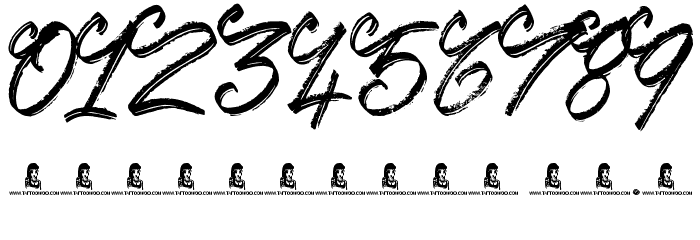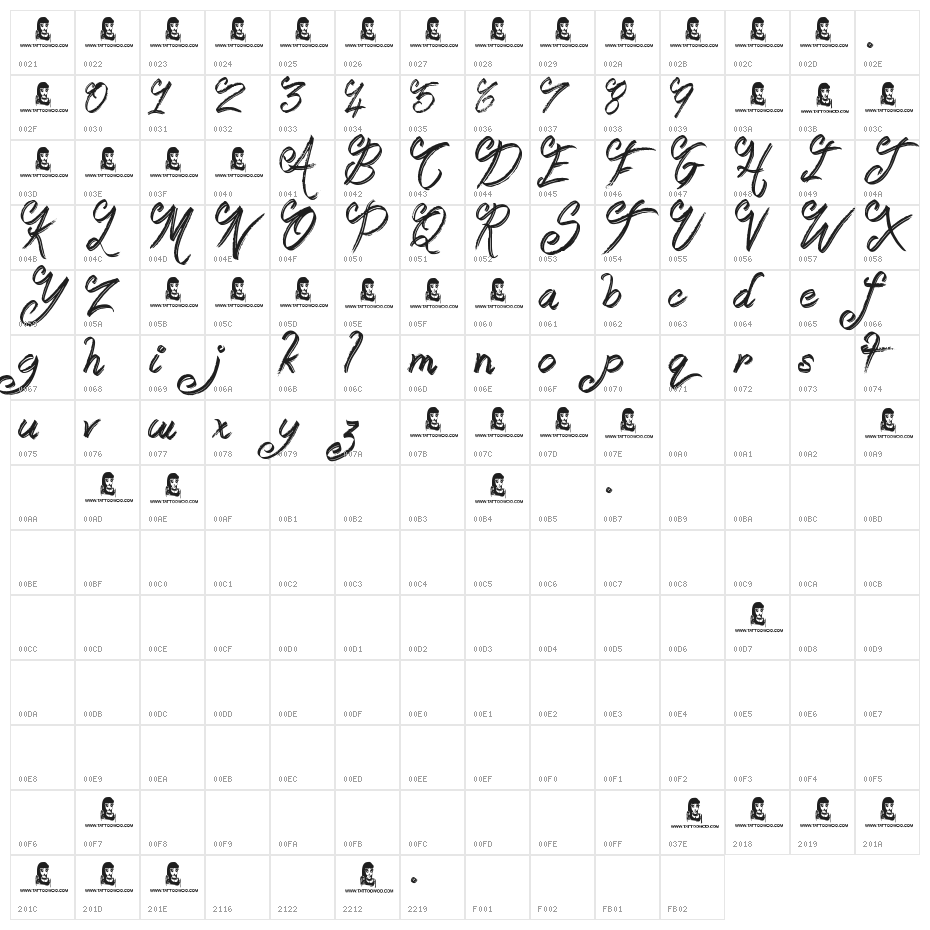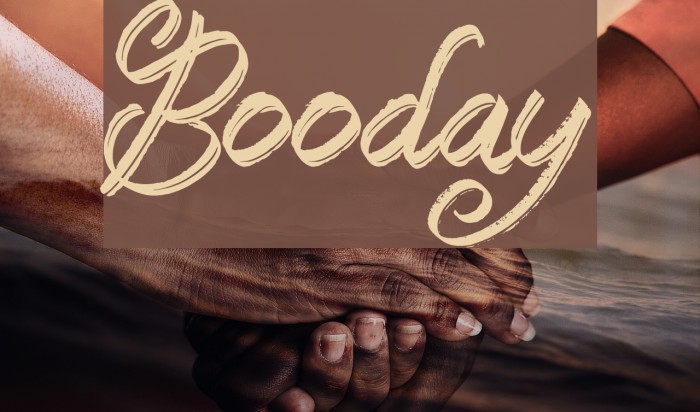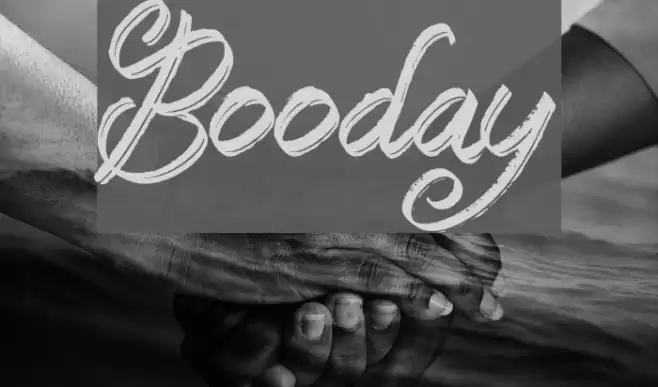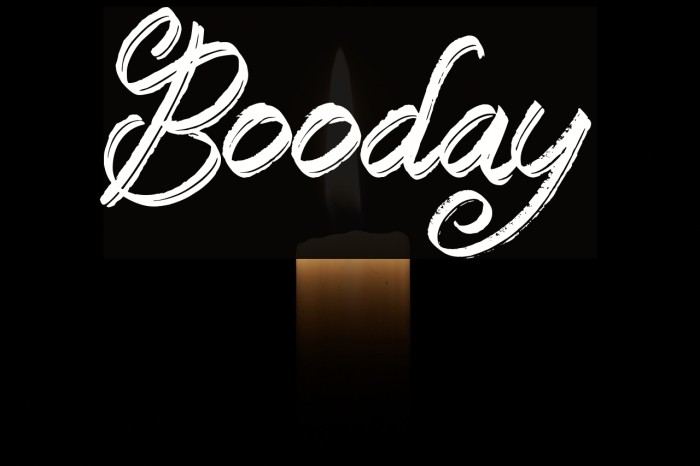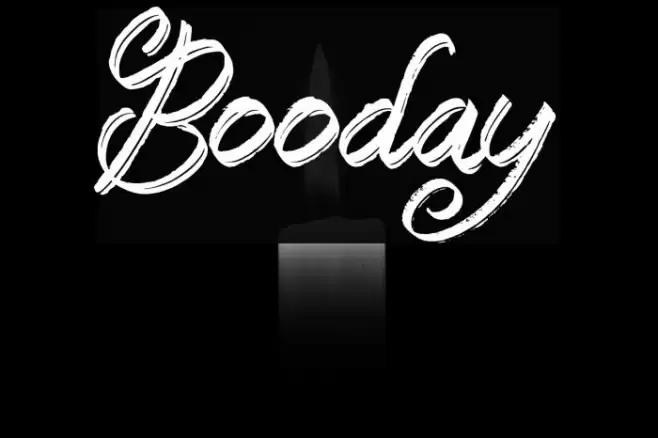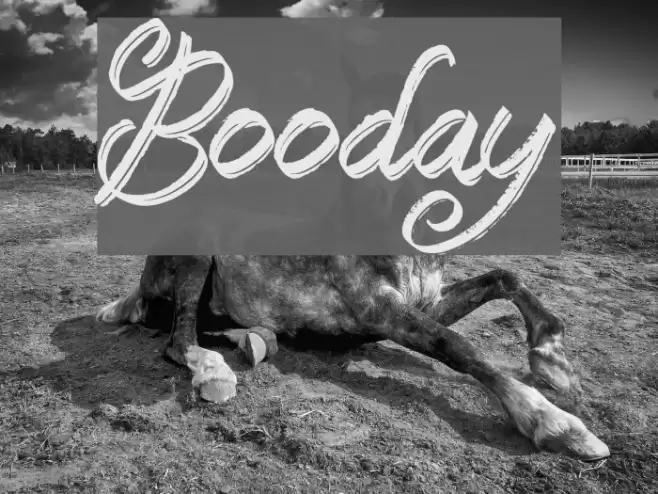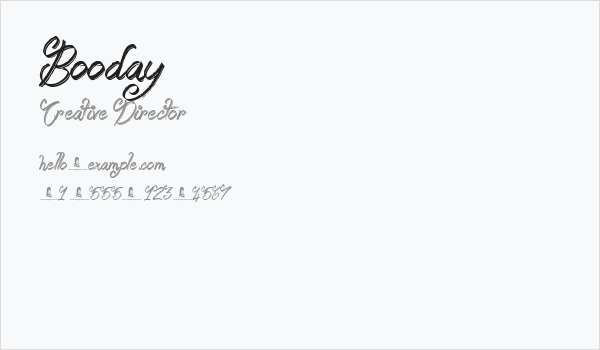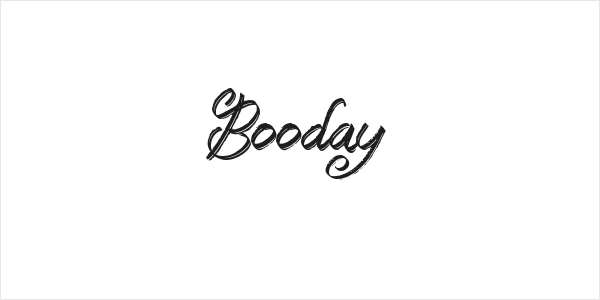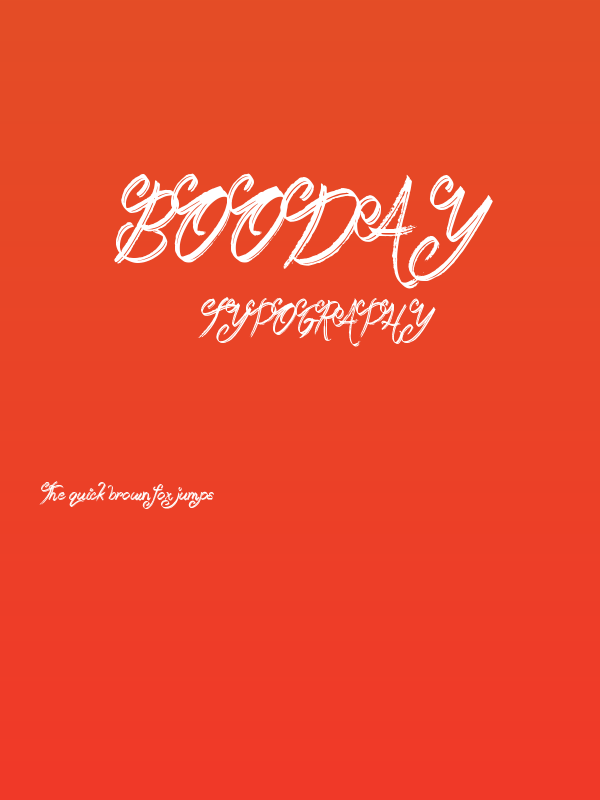
Booday Font
Booday Description
This font features a dynamic and expressive script style with a hand-drawn appearance. The letters are characterized by bold, sweeping strokes and a slightly rough texture, giving them an energetic and artistic feel. The uppercase letters are particularly elaborate, with flourishes and loops that add a sense of movement and flair. The lowercase letters maintain a consistent style, with some characters featuring unique embellishments. The numbers and special characters are designed to match the overall aesthetic, ensuring a cohesive look across all elements.
| Use Case | Logos, Headlines, Artistic designs |
| Proposed Projects | Ideal for creative projects such as branding, invitations, posters, and artistic designs where a bold, personal touch is desired. |